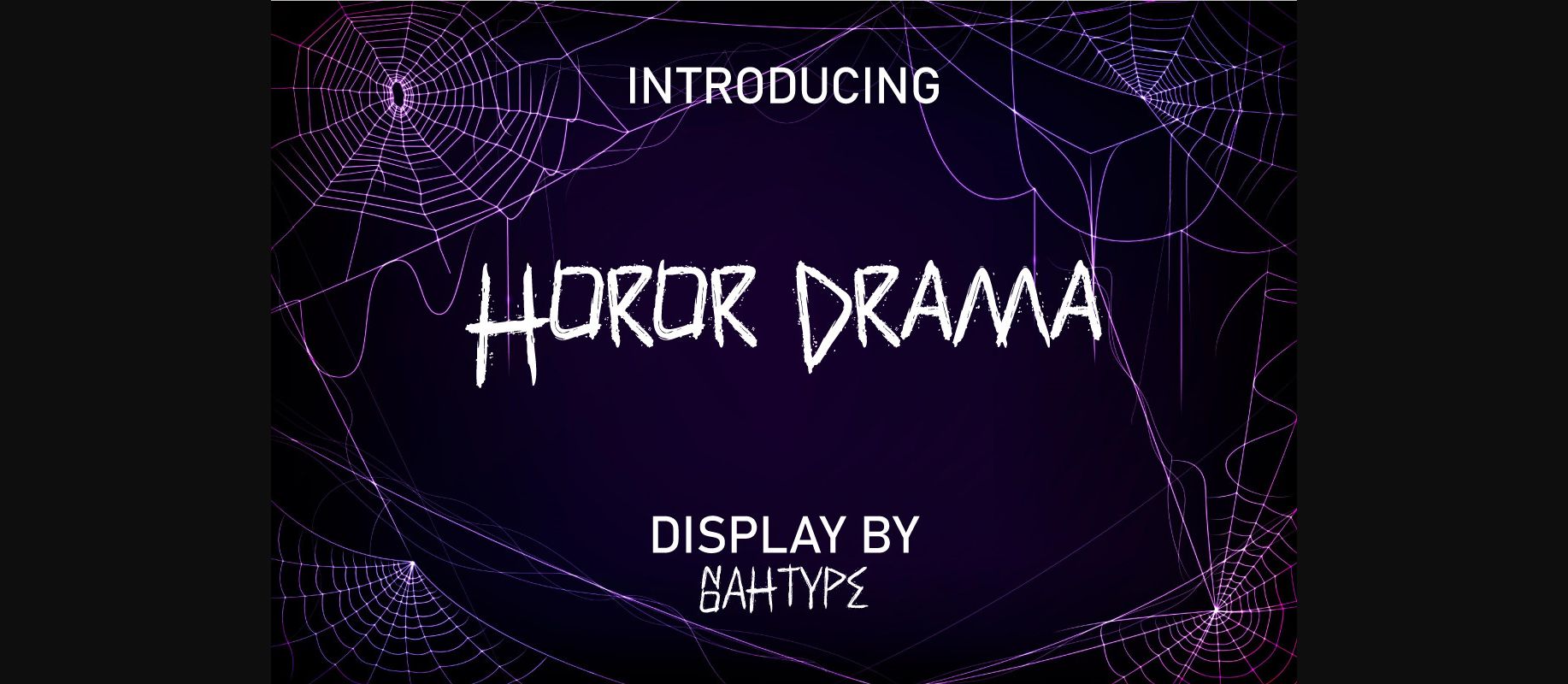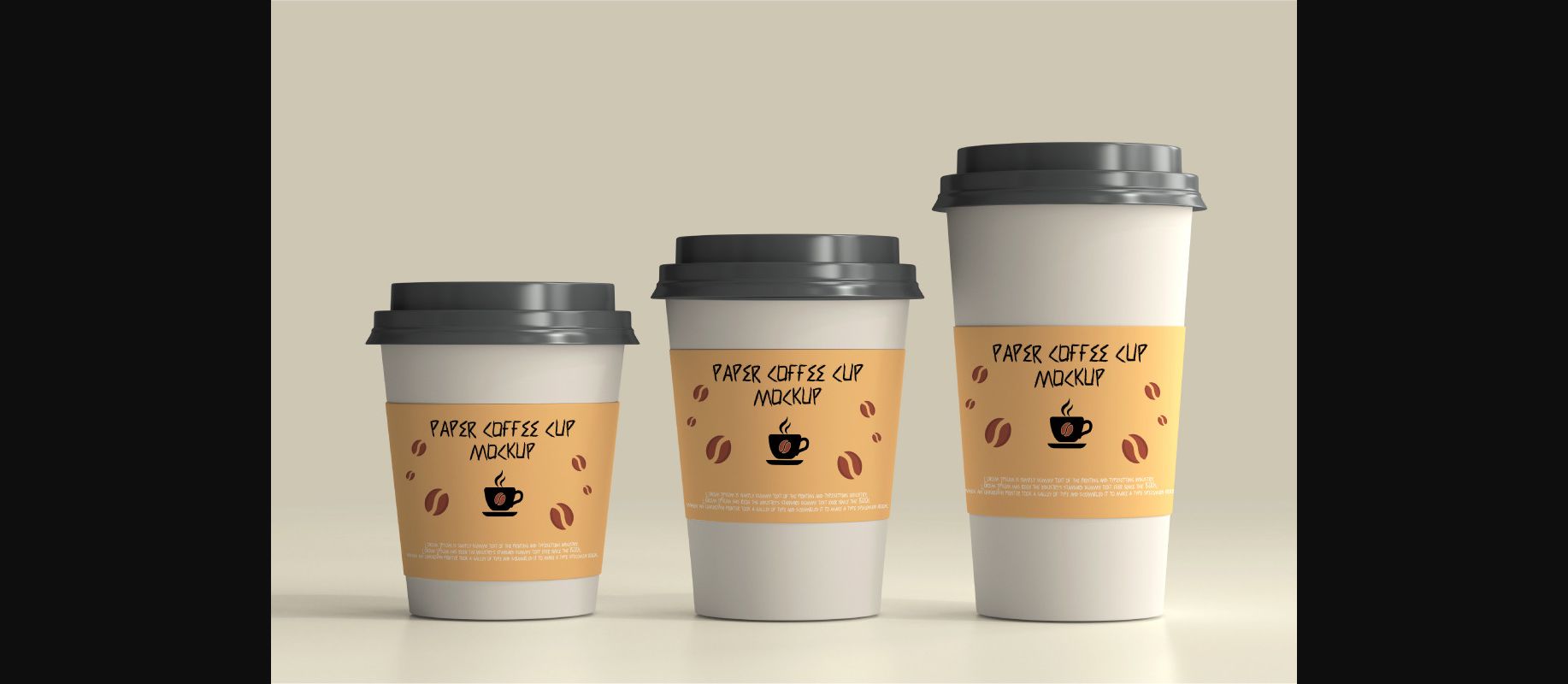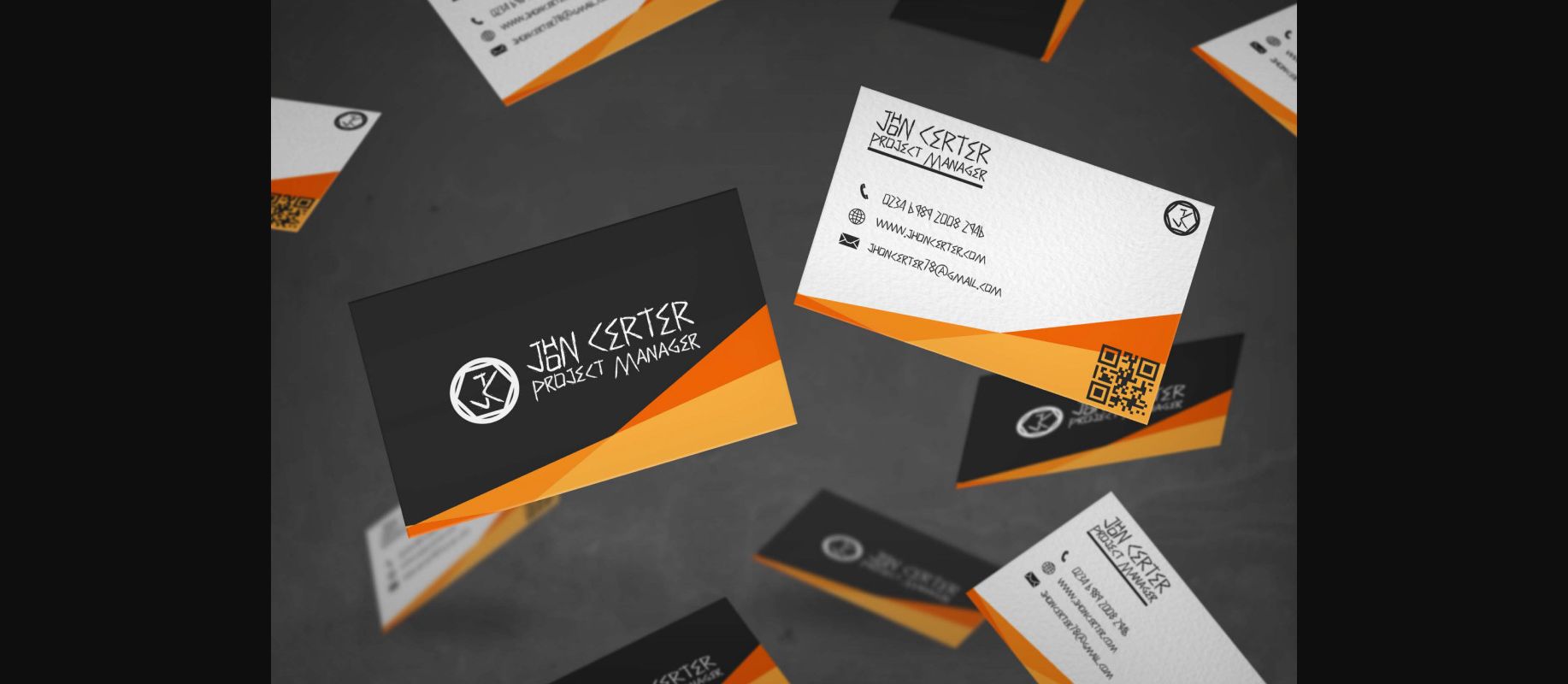
About Horor Drama Font
Horor Drama is a spooky yet fun display font. This font has a horror texture that adds a spooky feel to your horror-themed projects, basically inspired by horror drama. Add it confidently to your projects, and you will be speechless with the results. This font is PUA encoded which means you can access all of the glyphs and swashes with ease!